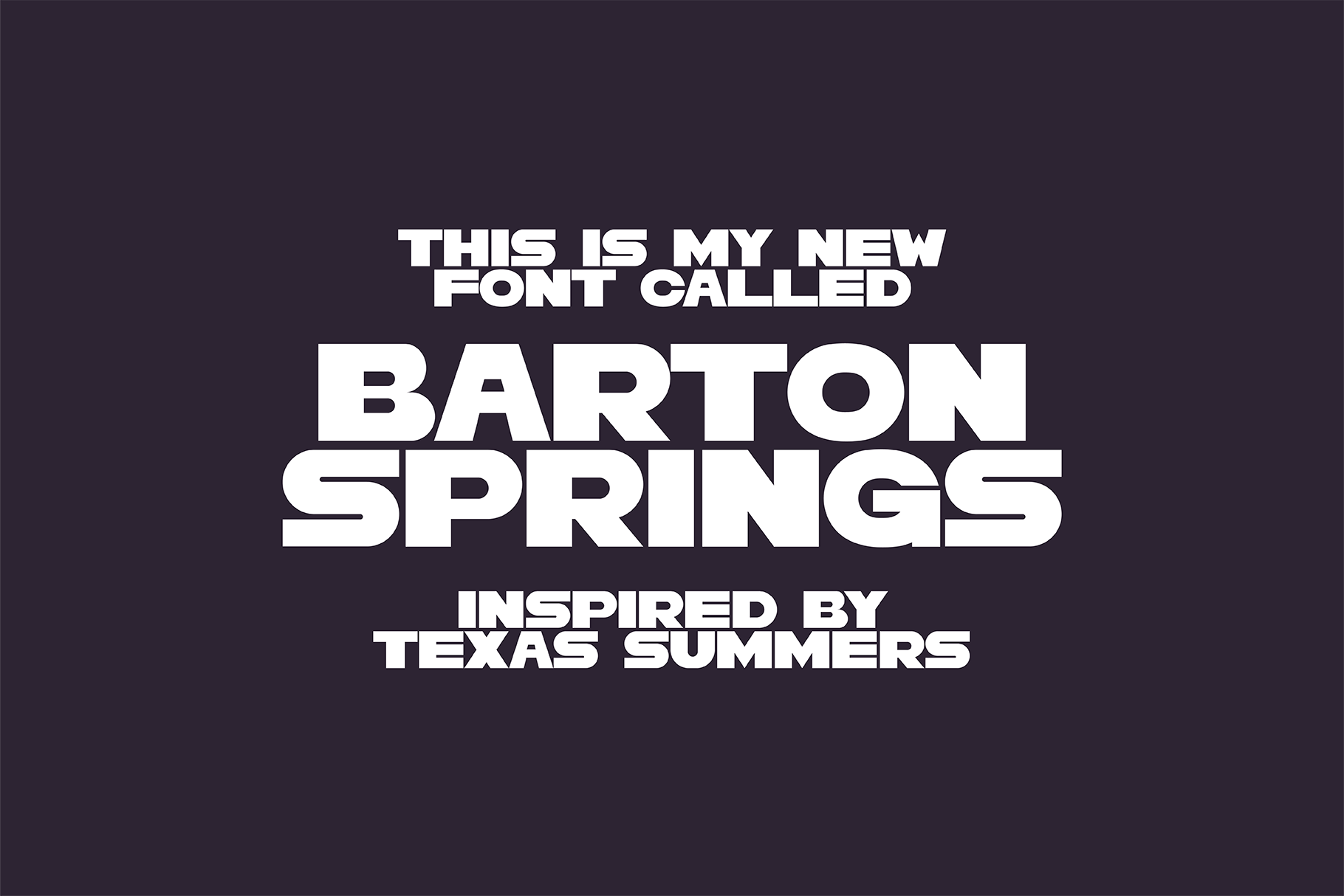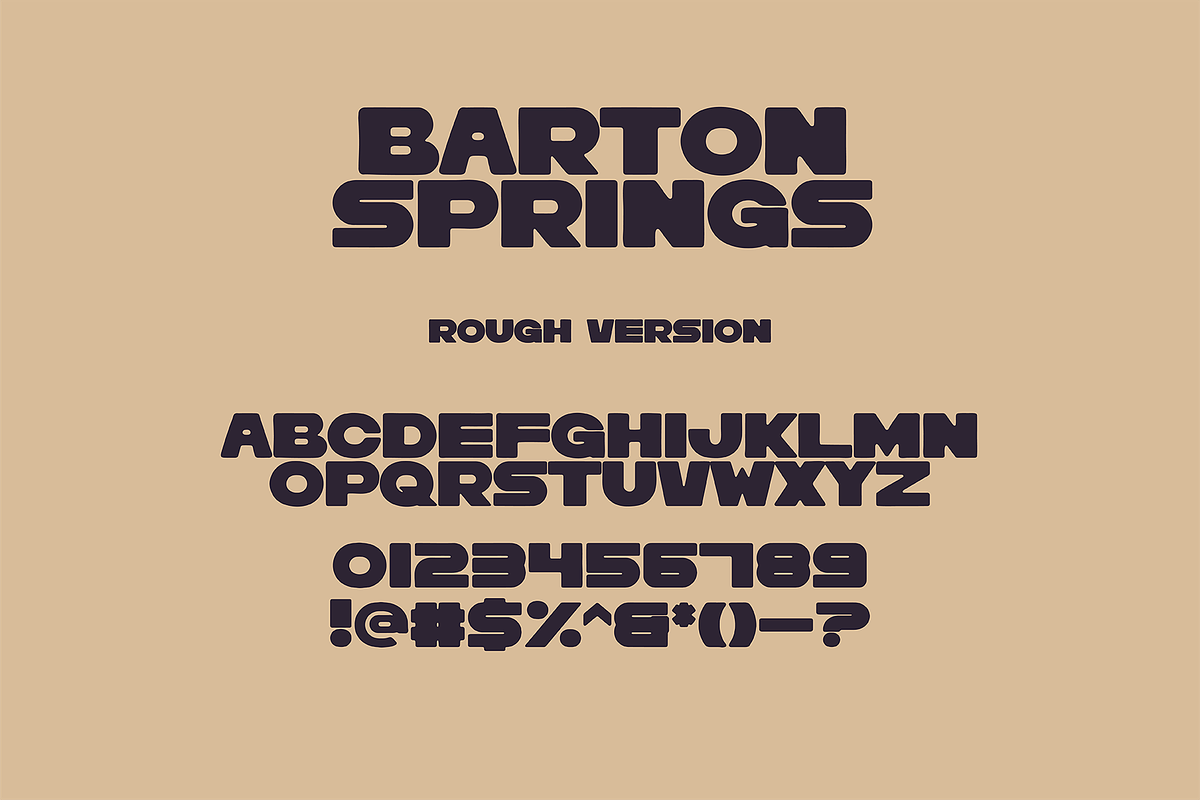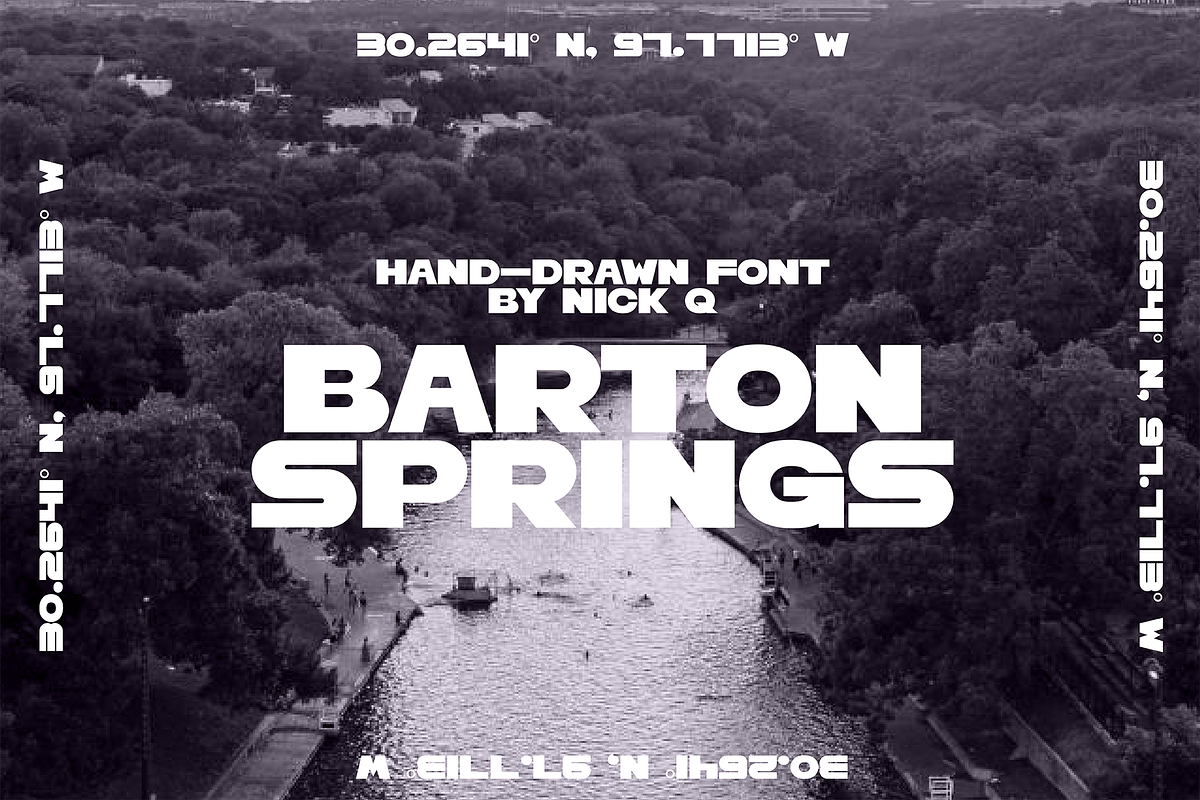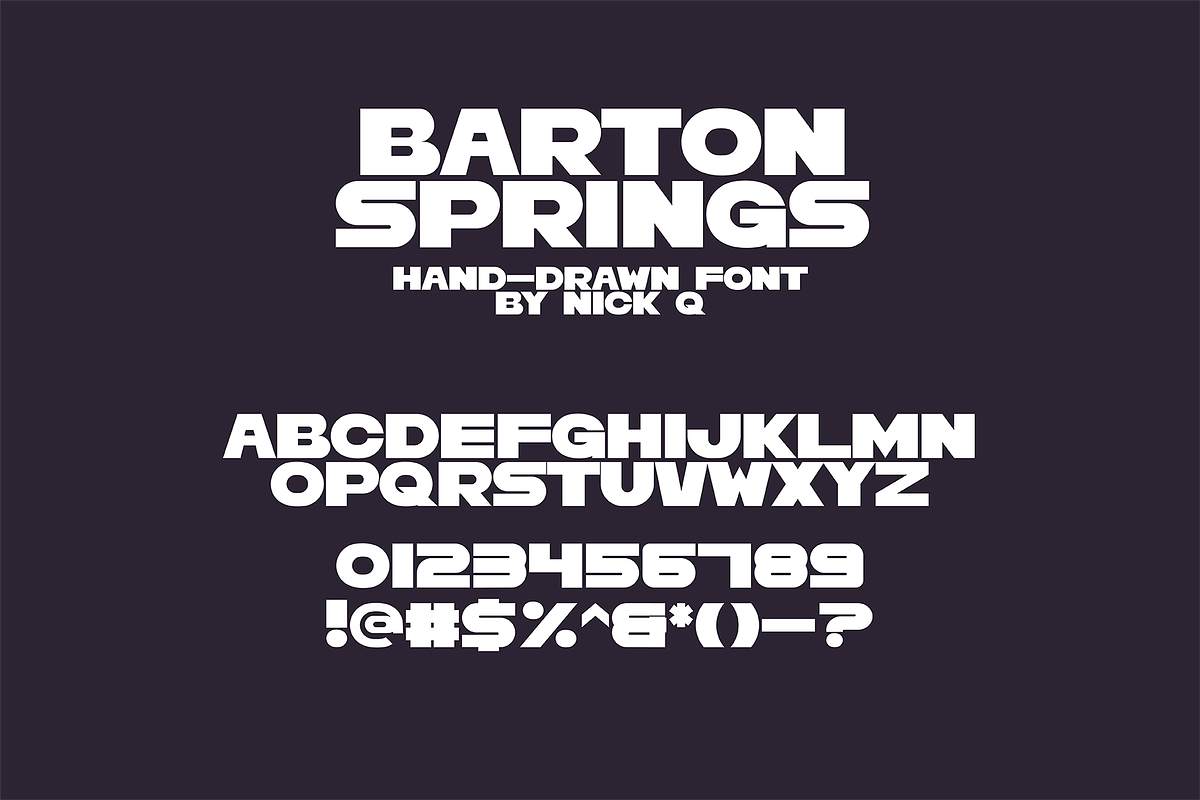
Barton Springs Hand Drawn Font
My newest hand drawn font inspired by summers in Texas. This font has 2 versions, a sharp clean version, and a rounded, rough look. Both versions come in this one download for one price! Enjoy!